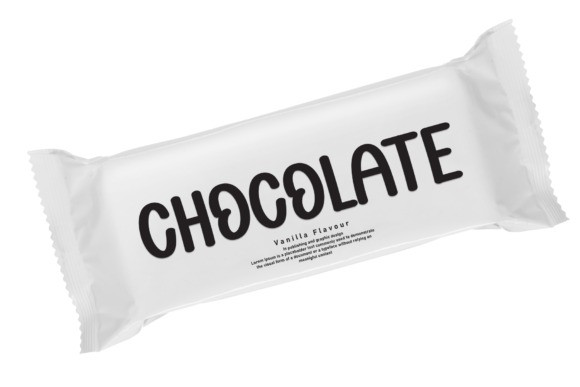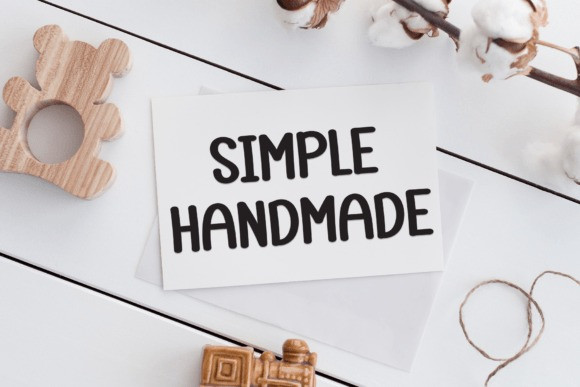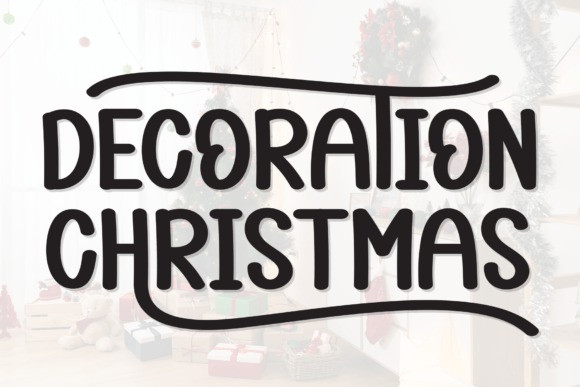
Decoration Christmas Font
Decoration Christmas Font is an incredibly cool display font. With a modern yet whimsical style, this font has the potential to bring each of your creative ideas to the highest level!